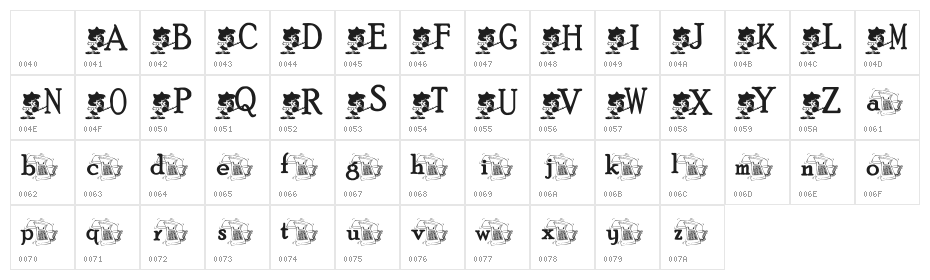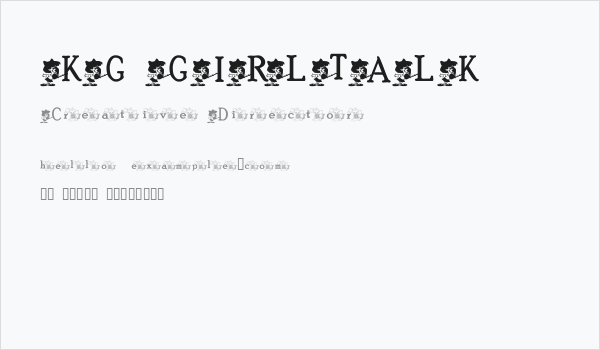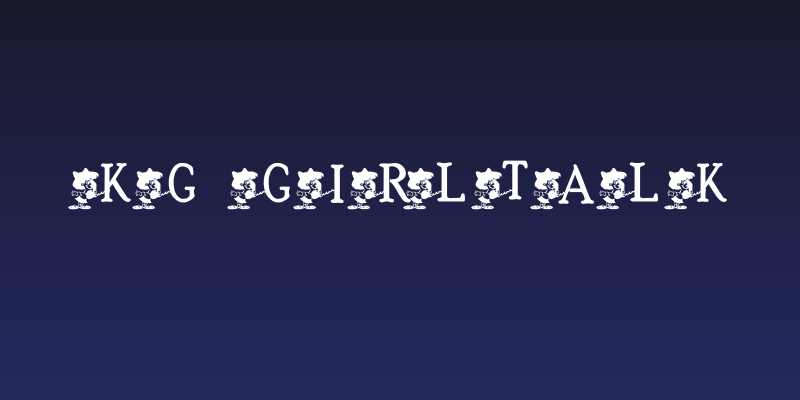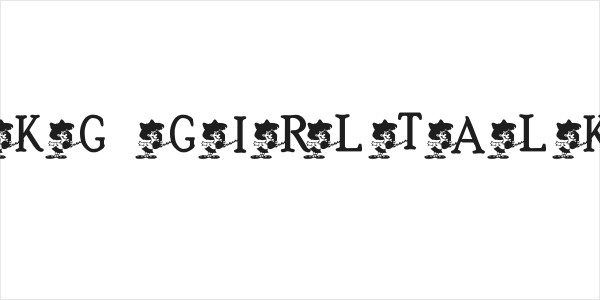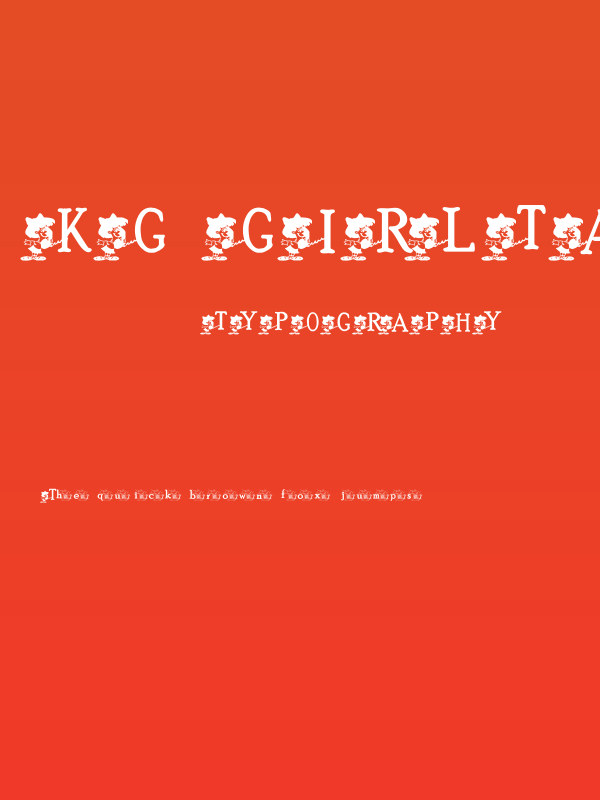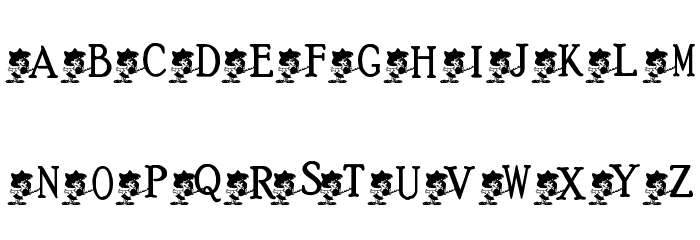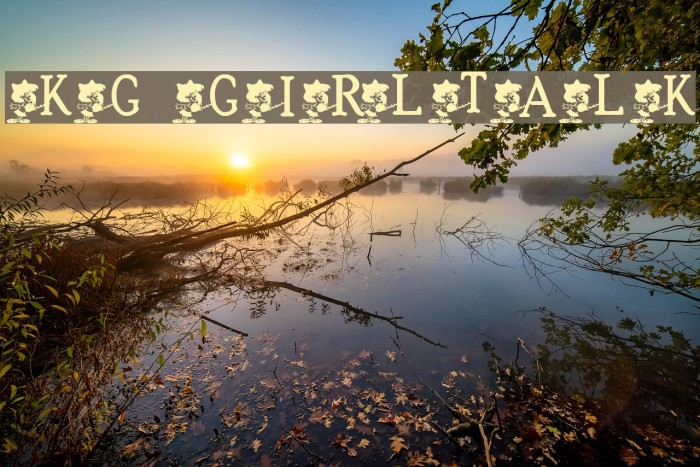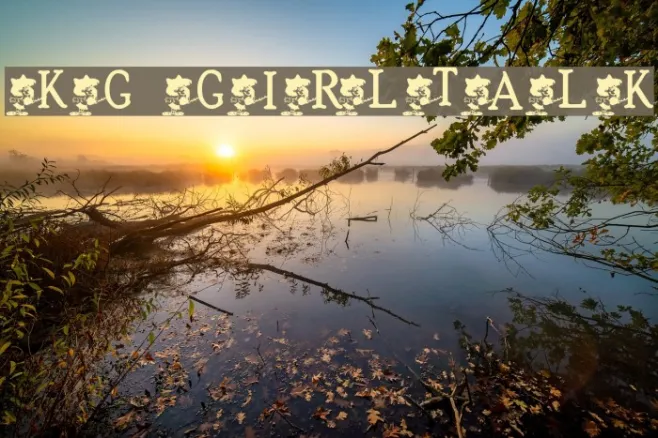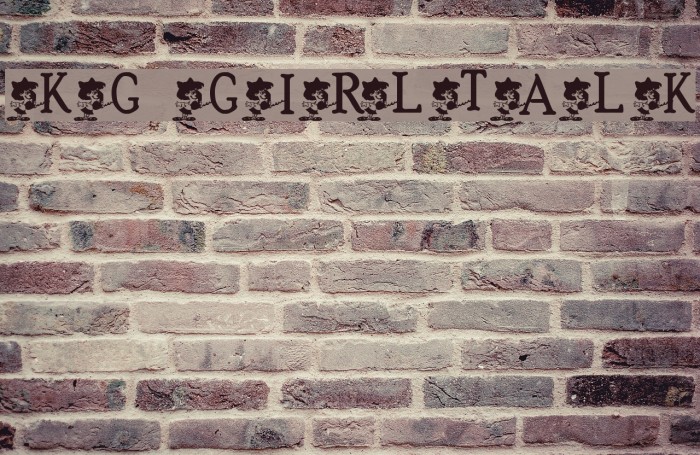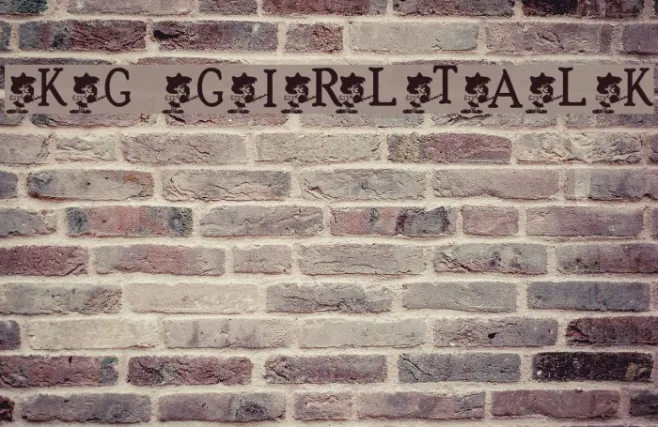
KG GIRLTALK Font
KG GIRLTALK Description
This playful and whimsical font features each letter embedded within a cartoonish character, adding a unique and decorative touch. The characters are bold and prominent, with a consistent style that incorporates a fun, childlike aesthetic. The uppercase and lowercase letters maintain a uniform design, ensuring readability while still offering a creative flair. The font includes numbers and a selection of special characters, each maintaining the same playful theme. This design is perfect for projects that require a lighthearted and engaging visual element.
| Overall Style | Whimsical, Playful |
| Proposed Projects | Ideal for children's books, playful invitations, educational materials, and creative posters. |